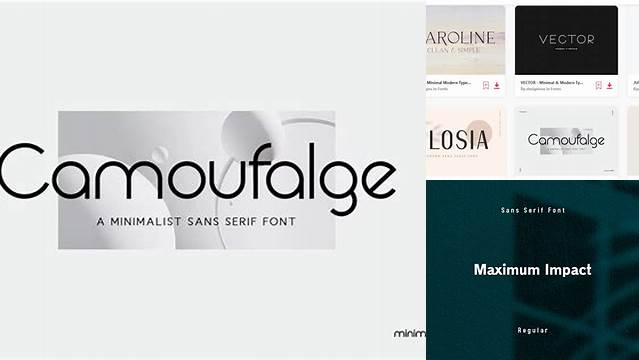
Minimalist Fonts: Simple Design, Maximum Impact
Hey guys! Ever stopped to admire a really clean, elegant design and wondered what makes it so appealing? Chances are, the font plays a HUGE role. We're diving deep into the world of minimalist fonts today, exploring why they're so popular, how to spot them, and where you can find the perfect ones for your next project. Buckle up, because we're about to unlock the secrets of simple yet stunning typography! These fonts aren't just about looking pretty; they're about communicating effectively, creating a sense of calm, and ensuring your message is crystal clear. Minimalism in font design is all about stripping away the unnecessary and focusing on the core essence of each letter. The goal? To make your message pop without any distractions, leaving a lasting impression on your audience. From websites and logos to print materials and presentations, choosing the right minimalist font can elevate your design to a whole new level.
What Exactly Are Minimalist Fonts? A Deep Dive
So, what exactly are minimalist fonts? Think of them as the typography equivalent of a perfectly tailored suit. They are often characterized by their simplicity, clean lines, and a lack of ornamentation. They embrace negative space and prioritize legibility above all else. This doesn't mean they're boring, though! Minimalist fonts come in a variety of styles, from sleek sans-serifs to elegant serifs, each with its own unique personality. The common thread is their ability to convey a message clearly and efficiently. They're the chameleons of the font world, adapting seamlessly to different design contexts. These fonts are all about making your words shine. They offer a sense of order and clarity. When you use a minimalist font, you’re not just choosing a typeface; you’re making a statement about your brand’s values. It shows your audience that you value simplicity, precision, and clarity. They often lack fancy flourishes or elaborate details, focusing instead on the pure form of the letters. The idea is to create a visual experience that is both aesthetically pleasing and highly functional. In a world saturated with information, minimalist fonts cut through the noise, delivering your message directly and effectively. These fonts offer a visual experience that prioritizes clarity and elegance.
Key Characteristics of Minimalist Fonts
Minimalist fonts are generally characterized by a few key features that set them apart from their more ornate cousins. They generally have clean lines, simple letterforms, and a focus on geometric shapes. The use of negative space is also very important, as it helps to give the letters room to breathe and improves readability. The bold type is perfect for headlines and titles, while lighter weights can be used for body text. Legibility is always the number one priority. Regardless of the style, the goal is to make sure the words are easily readable, even at smaller sizes. Emphasis is always given to functionality over adornment. The best minimalist fonts are versatile. They can adapt and fit into a variety of design projects, from websites to print materials. Some of the most popular are sans-serif fonts, like Helvetica and Arial. But, it's not just limited to sans-serif fonts. Some serif fonts, like Garamond, can also work well. It is important to choose a font that complements your design. The character shapes are usually simplified, focusing on the essential strokes and curves that define each letter. It is all about balance and harmony.
Minimalist Fonts vs. Other Font Styles: What’s the Difference?
So, how do minimalist fonts stack up against other font styles? Unlike ornate or decorative fonts, minimalist fonts prioritize clarity and legibility. They steer clear of elaborate serifs, excessive flourishes, or complex letterforms. They are the calm, composed ones in a room full of expressive and noisy guests. Decorative fonts are all about making a statement with intricate details and unique shapes. These fonts are perfect when you want to catch someone's eye. But, for body text or lengthy content, they can quickly become overwhelming and difficult to read. Serif fonts are classical, with small strokes at the end of each letter. They have a timeless elegance. Sans-serif fonts lack these strokes, giving them a clean, modern look. They're ideal for digital displays and modern designs. Minimalist fonts, often being sans-serif, also share similarities with modern fonts. They embrace a clean, uncluttered aesthetic and a focus on functionality. In the end, the best font style always depends on your design goals. The most important aspect is always what message you want to send to your audience. When you’re building a brand, minimalist fonts communicate a sense of sophistication and professionalism, while other styles can feel too busy or outdated.
Exploring Different Types of Minimalist Fonts
Minimalist fonts are not just one size fits all. They come in a variety of styles. Let's explore some of the most popular types, so you can get a sense of what works best for your design needs! Each font family offers a unique perspective on minimalism, allowing you to create something that resonates with your audience.
Sans-Serif Minimalist Fonts: Clean and Modern
Sans-serif fonts are the workhorses of the minimalist font world. These fonts have no small strokes, or serifs, at the end of the letter strokes, giving them a clean, modern look. They're incredibly versatile and work well in almost any context, from web design to print. Helvetica is a quintessential example, known for its clarity and neutrality. Other popular choices include Arial, Roboto, and Open Sans. These fonts are all designed for readability and simplicity. Their simple letterforms make them highly legible at various sizes. They offer a sense of order and sophistication.
Serif Minimalist Fonts: Classic and Elegant
While sans-serif fonts dominate the minimalist scene, serif fonts can also be used, especially when you want to convey a sense of tradition, sophistication, and elegance. Garamond, with its refined serifs and balanced proportions, is an excellent example. Times New Roman, while perhaps more traditional, can also be considered minimalist. These fonts balance tradition with modern clarity. These can be used to make a design feel more formal or trustworthy. They are perfect for long-form text, where readability is essential. They offer a touch of elegance. They are an ideal choice for brands that want to project a sense of history and reliability. They are all about attention to detail.
Monospace Minimalist Fonts: Functional and Distinctive
Monospace fonts are a special breed of minimalist fonts, where each letter and character takes up the same amount of horizontal space. This makes them ideal for code, technical documents, and anything where alignment is important. Courier New is a classic example. Roboto Mono is a more modern take on the style. These fonts have a unique and utilitarian aesthetic. They are all about precision and clarity. They can create a distinct and modern feel. They are perfect for a tech-savvy brand. They are a great way to add a sense of authenticity.
Display Minimalist Fonts: Bold Statements
Display fonts are designed to grab attention and make a visual impact. Even within minimalism, there are variations. Some display fonts have simple geometric shapes and ultra-thin strokes. Display fonts make your message stand out. They can create striking headlines or eye-catching logos. They use clean, impactful designs to convey a message. They use minimalist principles for visual appeal.
How to Choose the Right Minimalist Font for Your Project
Choosing the right minimalist font is all about understanding your project's needs and target audience. To make a great decision, here's a breakdown to guide you. A carefully chosen font can make or break your design. Let's go through what you need to consider. This choice directly impacts the visual appeal of your design. It also influences how your audience perceives your message. Take a look at these aspects.
Inspiration and Resources for Minimalist Font Design
There are resources and inspirations for minimalist font design. Use online platforms. Seek inspiration from design blogs. You can always find the right resources. Use these resources to find your perfect font. You can learn more about the process. Inspiration is the key to the process. Inspiration will always lead to better designs. Finding the right font is always about exploration. This exploration will also make you better. With the right information, you will become a font design expert. The knowledge will always empower you.